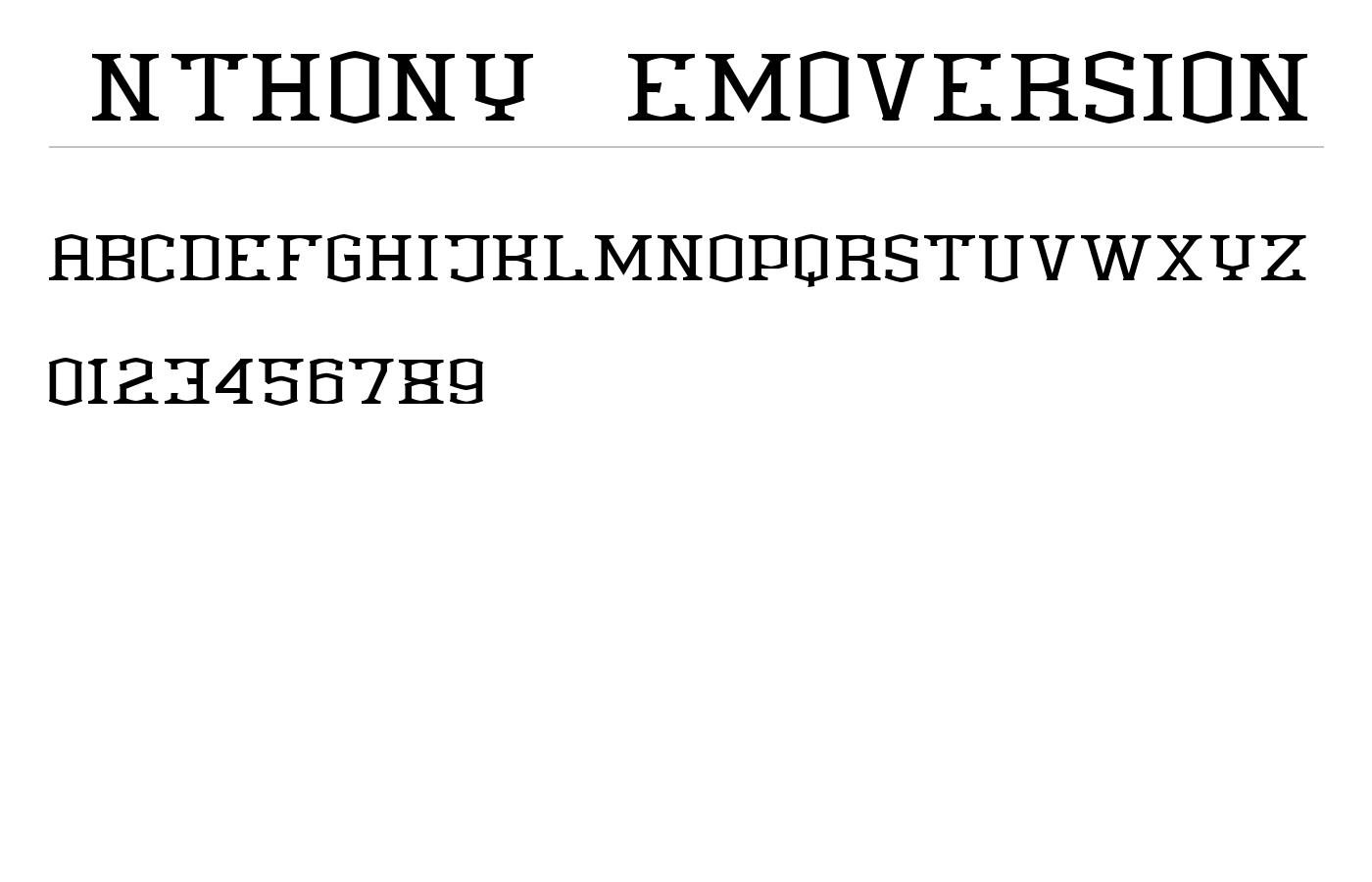
Anthony Demoversion is a bold slab serif font with a vintage, industrial feel. Its tall, condensed letterforms feature strong, geometric serifs and low stroke contrast, giving it a sturdy yet refined appearance ideal for creating attention-grabbing headlines and logos. This font works well in branding and design projects that seek a classic but impactful style with a touch of rugged character.
Anthony Demoversion Font
About Anthony Demoversion Font